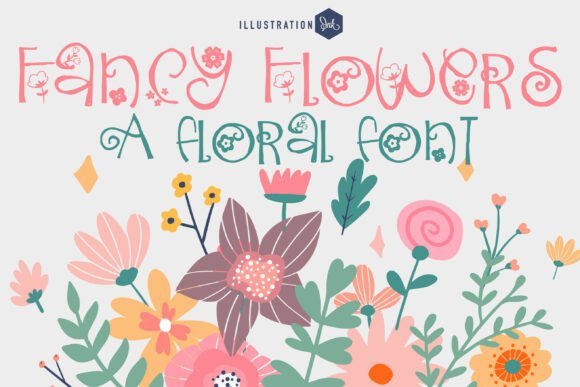
Redefine Playfulness with Fancy Flowers Family Font
Do you remember the feeling of doodling in your notebook as a child, letting your imagination run wild with swirling patterns and whimsical shapes? For designers, capturing that same sense of carefree creativity can be a challenge. But what if you had a font that could transport you back to that magical moment, infusing your designs with a playful, effortless charm?
Enter Fancy Flowers Family Font, a delightful “floral font” designed to bring joy to your projects. This whimsical typeface features tall, slender stems and integrated flower blooms directly within the letterforms, creating a bouncy, irregular rhythm that’s sure to delight. As a valuable addition to any designer’s toolkit, Fancy Flowers Family Font is perfect for children’s book titles, garden center signage, and DIY sticker design.
Fancy Flowers Family Font Key Features
- Font Styles: The Fancy Flowers Family Font comes in 6 unique styles, including Fancy Flowers, Fancy Flowers Script, Fancy Flowers Script Italic, Fancy Flowers Bold, Fancy Flowers Bold Italic, and Fancy Flowers Outline.
- Unique Characteristics: The Fancy Flowers Family Font features delicate, hand-drawn flowers and foliage elements, adding a touch of elegance and whimsy to any design.
Fancy Flowers Family Font Review
Fancy Flowers Family Font is a lovely and playful script font that’s perfect for adding a touch of whimsy to your designs. ✨ It’s great for creating attention-grabbing headlines, titles, and even entire brand identities. The font is highly customizable, with a wide range of styles and weights to choose from, making it easy to find the perfect fit for your project.
- ✨ Beautiful, hand-drawn designs that evoke a sense of nostalgia and romance.
- ✨ Highly customizable, with a wide range of styles and weights to choose from.
- ✨ Great for creating attention-grabbing headlines and titles.
However, there are some limitations to consider: ⚠️ The font may not be suitable for body text, as it can be quite difficult to read in smaller sizes. Additionally, the font’s playful nature may not be suitable for all types of projects or brands.
Overall, I would say that Fancy Flowers Family Font is a great addition to any designer’s toolkit. It’s perfect for projects that require a touch of elegance and sophistication, but with a playful twist. With a little creativity and experimentation, you can create truly stunning designs with this font.
To get the most out of the Fancy Flowers Family Font, consider the following tips:
- Use the font in combination with other decorative fonts for a unique look.
- Use the font for headings and titles to add a touch of elegance.
The Fancy Flowers Family Font is suitable for a variety of design projects, including:
- Baby shower and birthday party decorations.
- Special occasion cards and gift tags.
Alternatives to Fancy Flowers Family Font
Great Vibes Font is a beautiful, elegant script font that is perfect for designs that need a touch of sophistication and whimsy. It is ideal for wedding invitations, greeting cards, and other special occasions. Compared to Fancy Flowers Family Font, Great Vibes Font has a more refined and delicate feel, making it suitable for more formal designs.
Carolyna Pro Font is a modern, elegant script font that is perfect for designs that need a touch of luxury and sophistication. It is ideal for high-end branding, advertising, and editorial designs. Compared to Fancy Flowers Family Font, Carolyna Pro Font has a more streamlined and contemporary feel, making it suitable for modern and sleek designs.